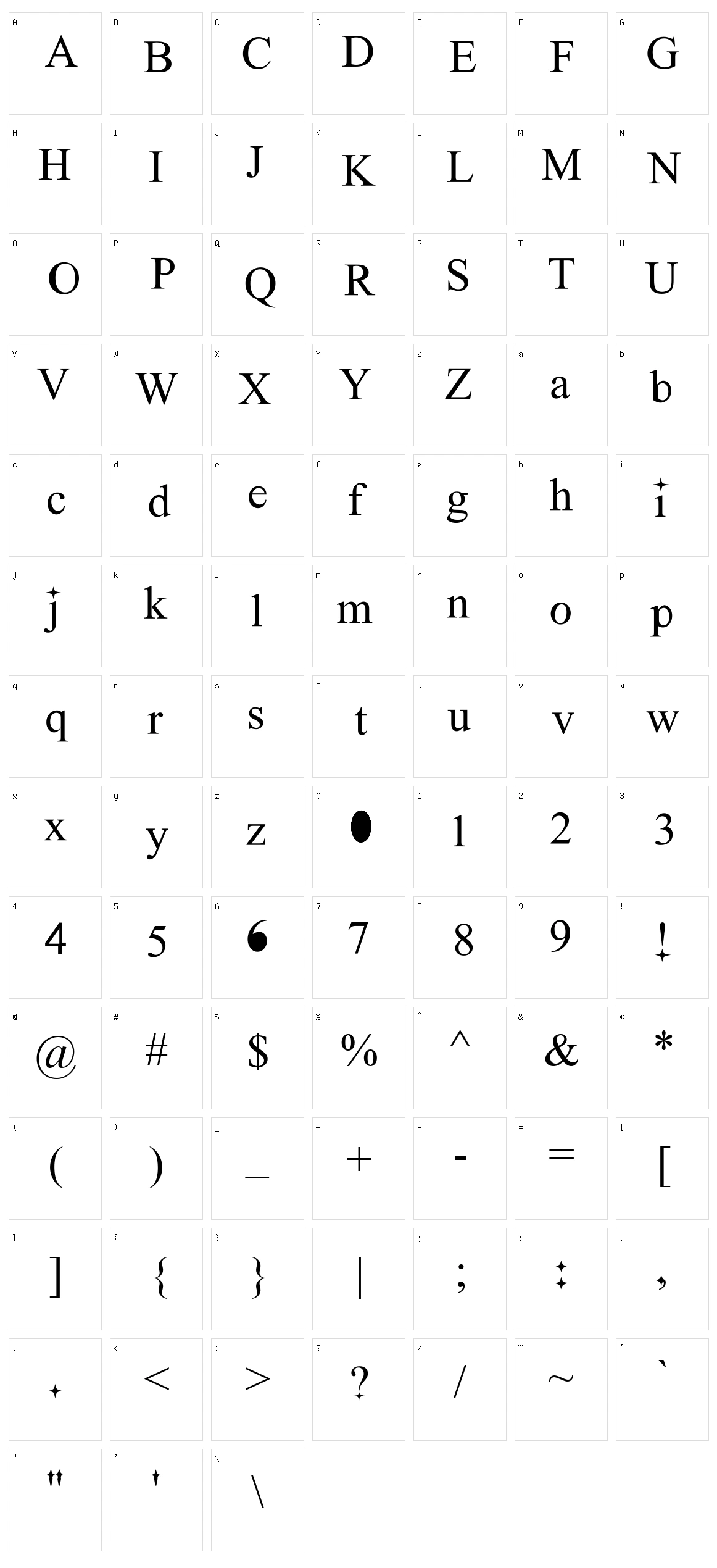
The free font New Romantics is carefully designed by Fonts a Go-Go, showcasing a thoughtful balance of creativity and usability and falls under the Distorted font style. When you download the ZIP file, it contains only 40.48 KB of font files, making it lightweight and quick to download. Please review the license details below to understand permitted usage and distribution rights. If license information is not available, we recommend using this font for personal projects only or contacting the author directly for commercial usage permissions.